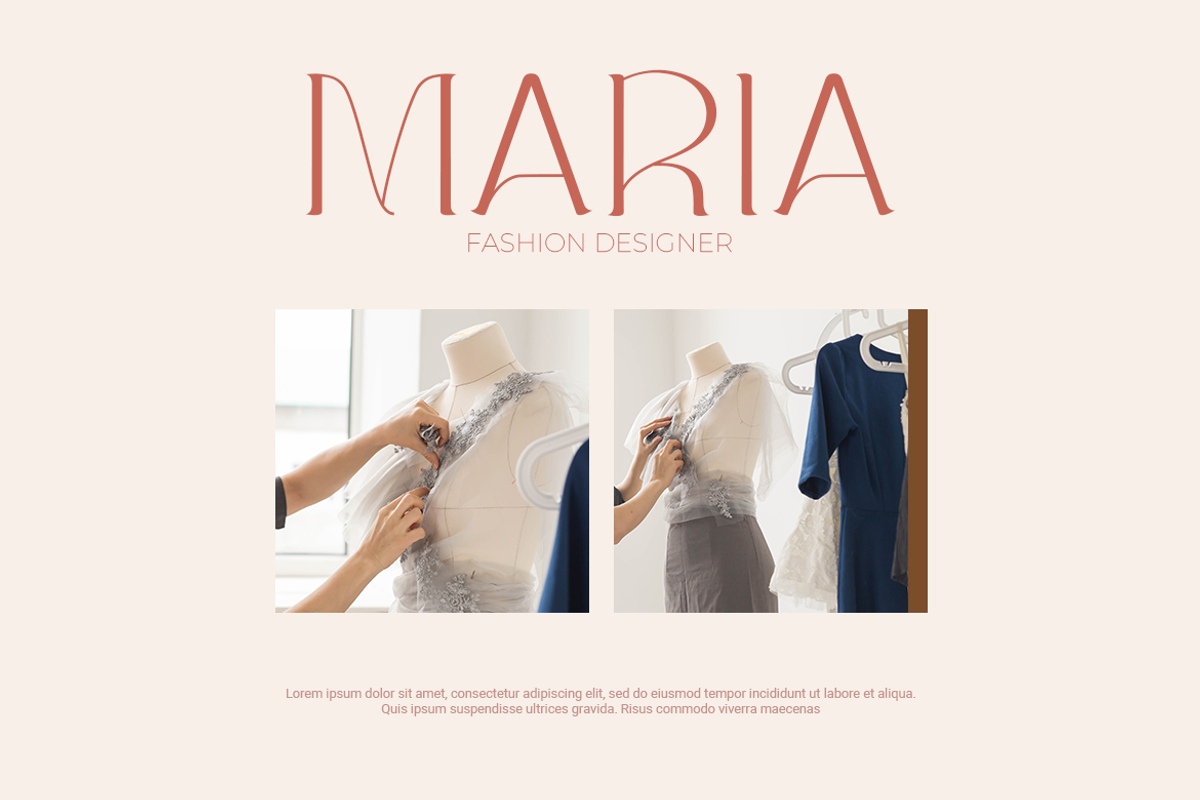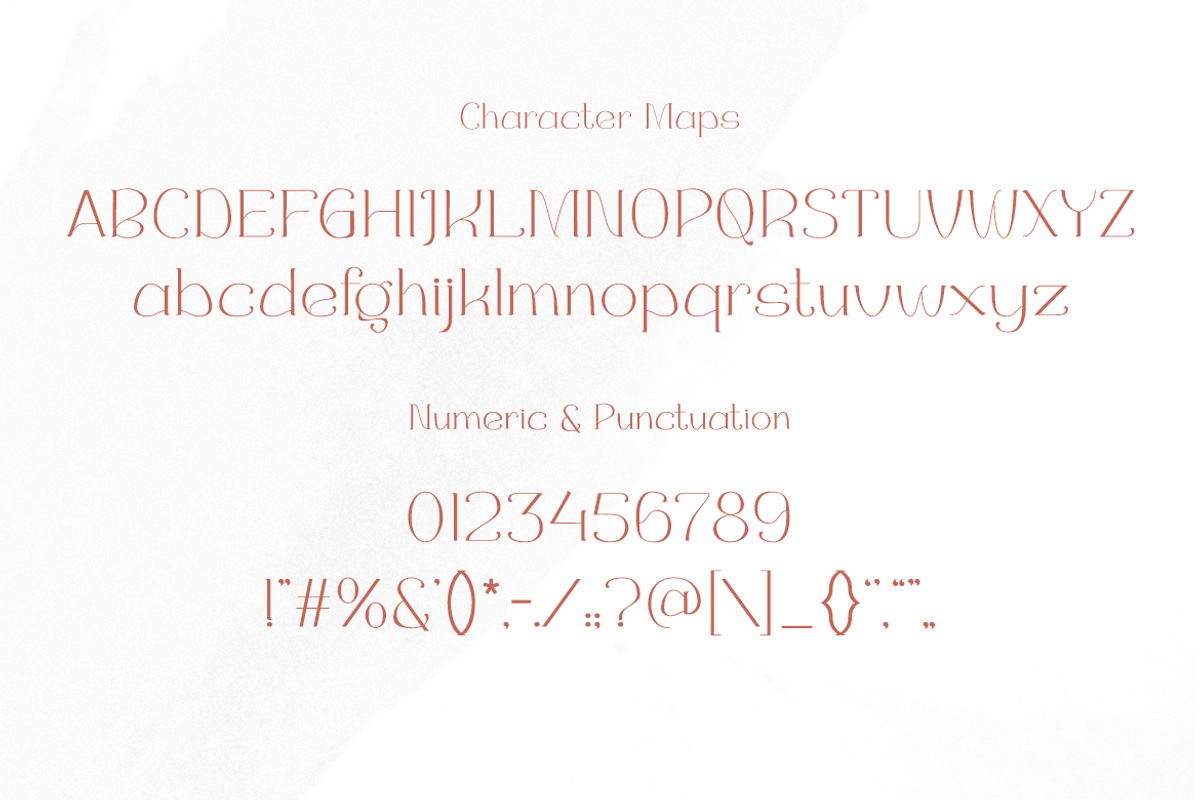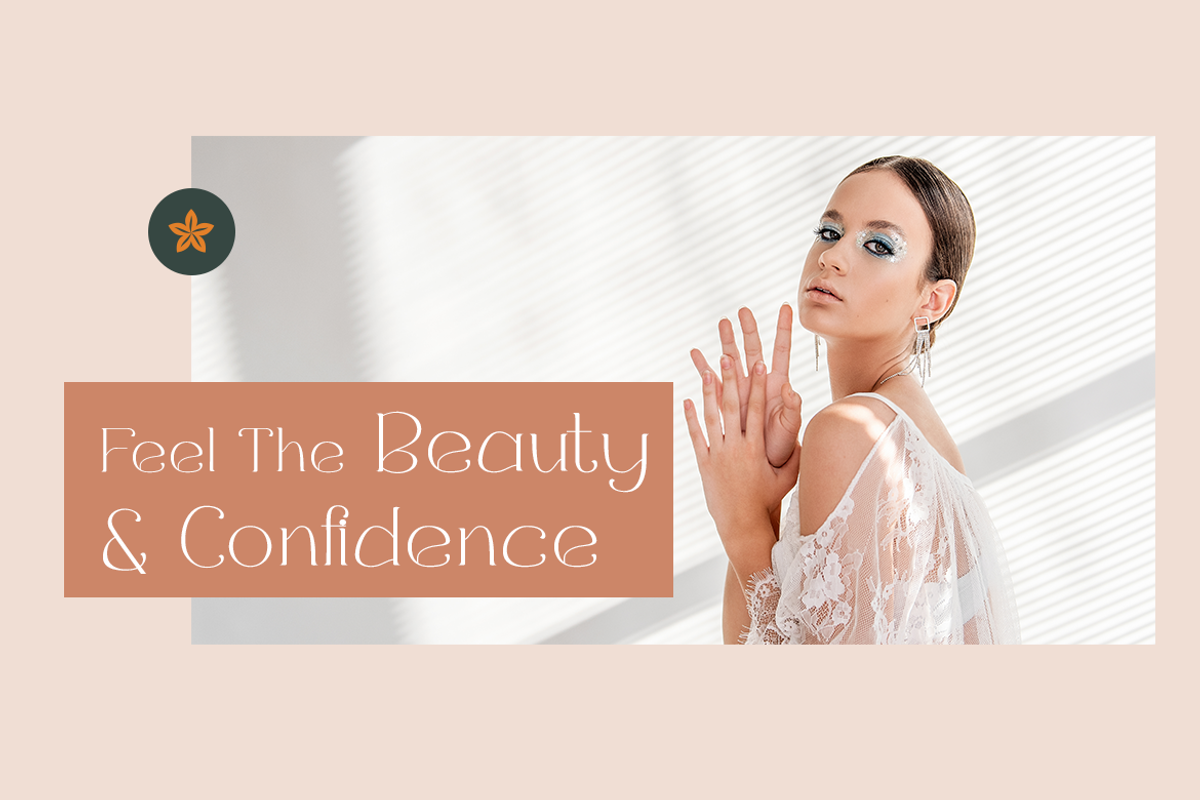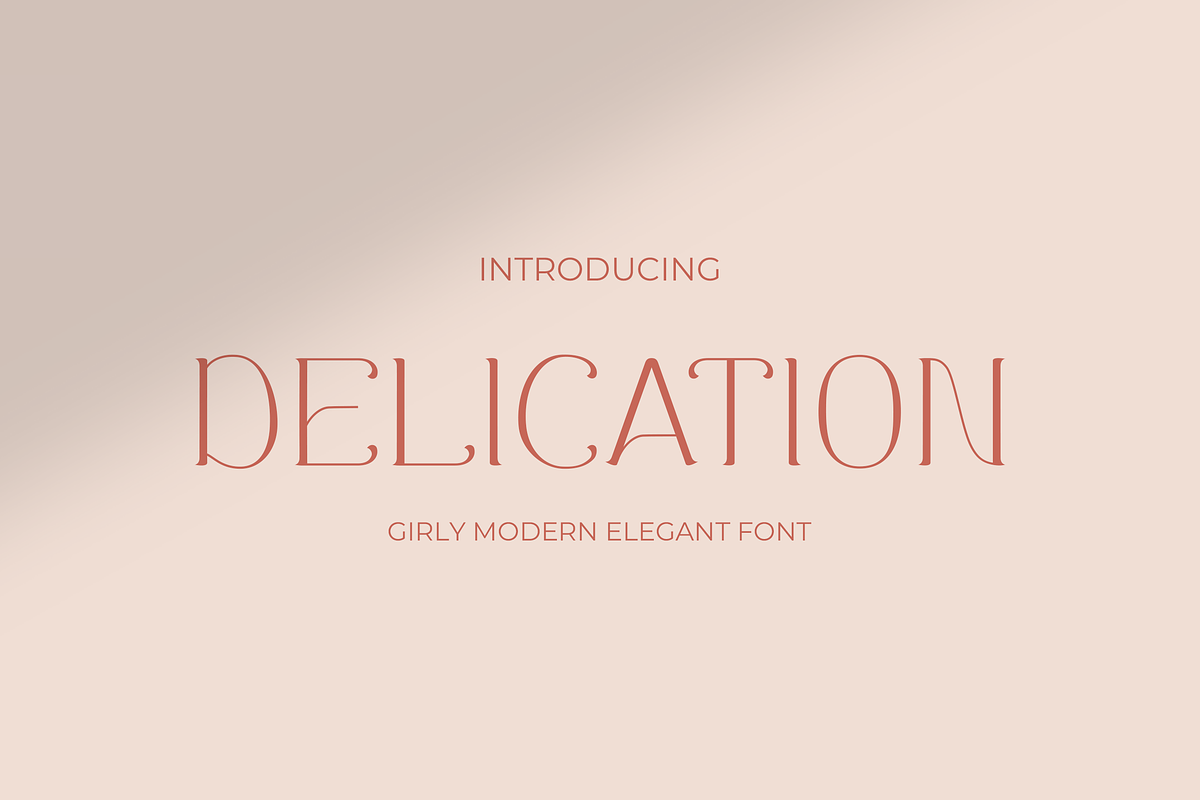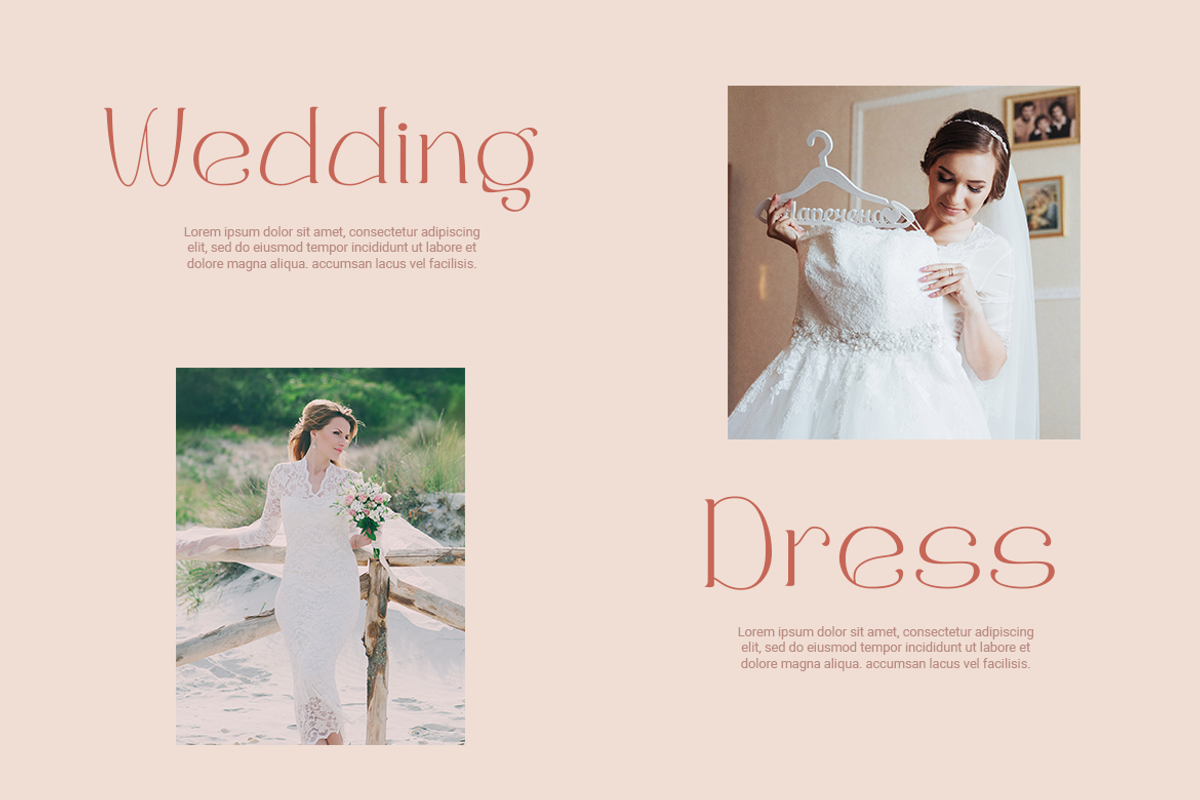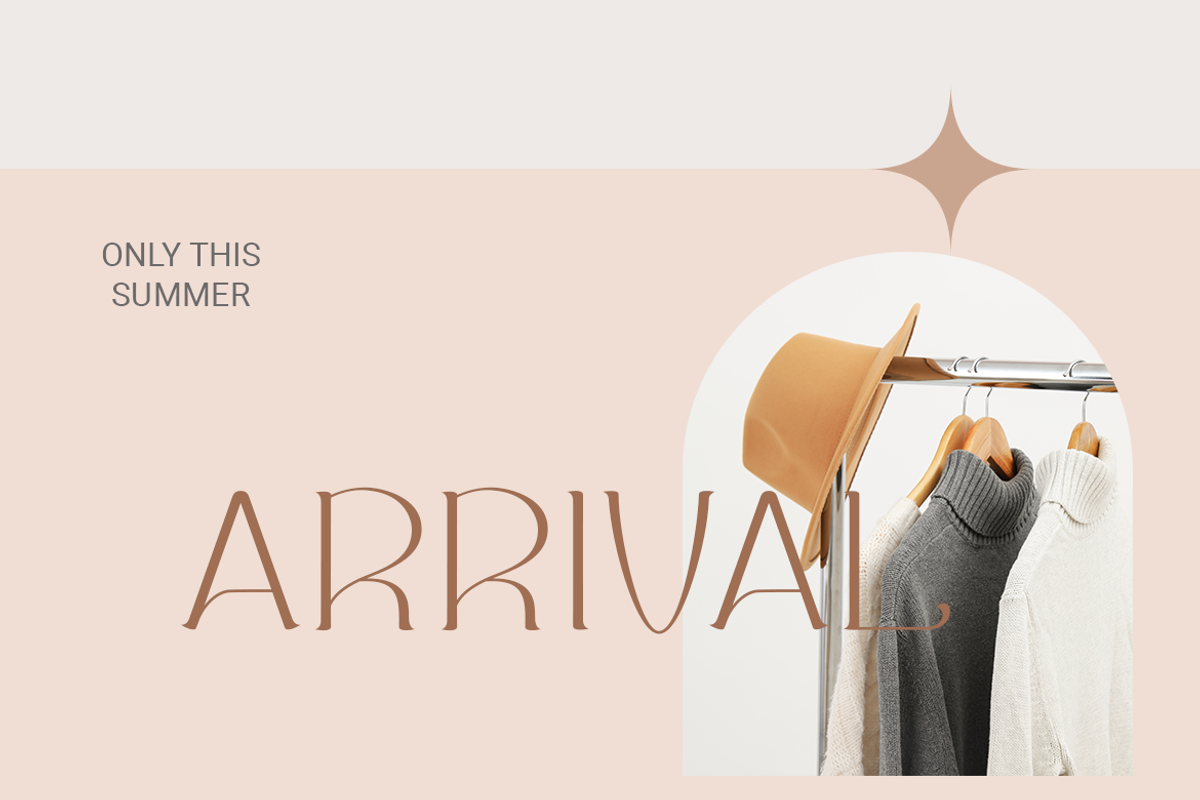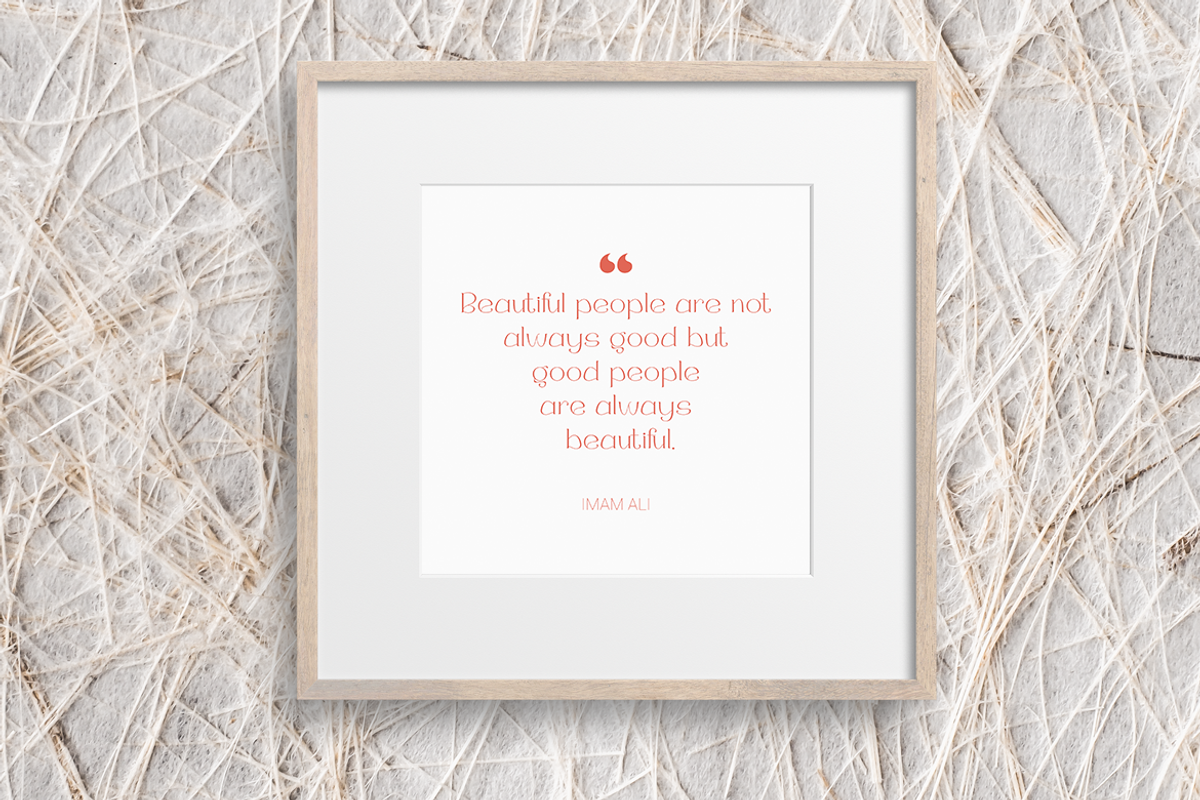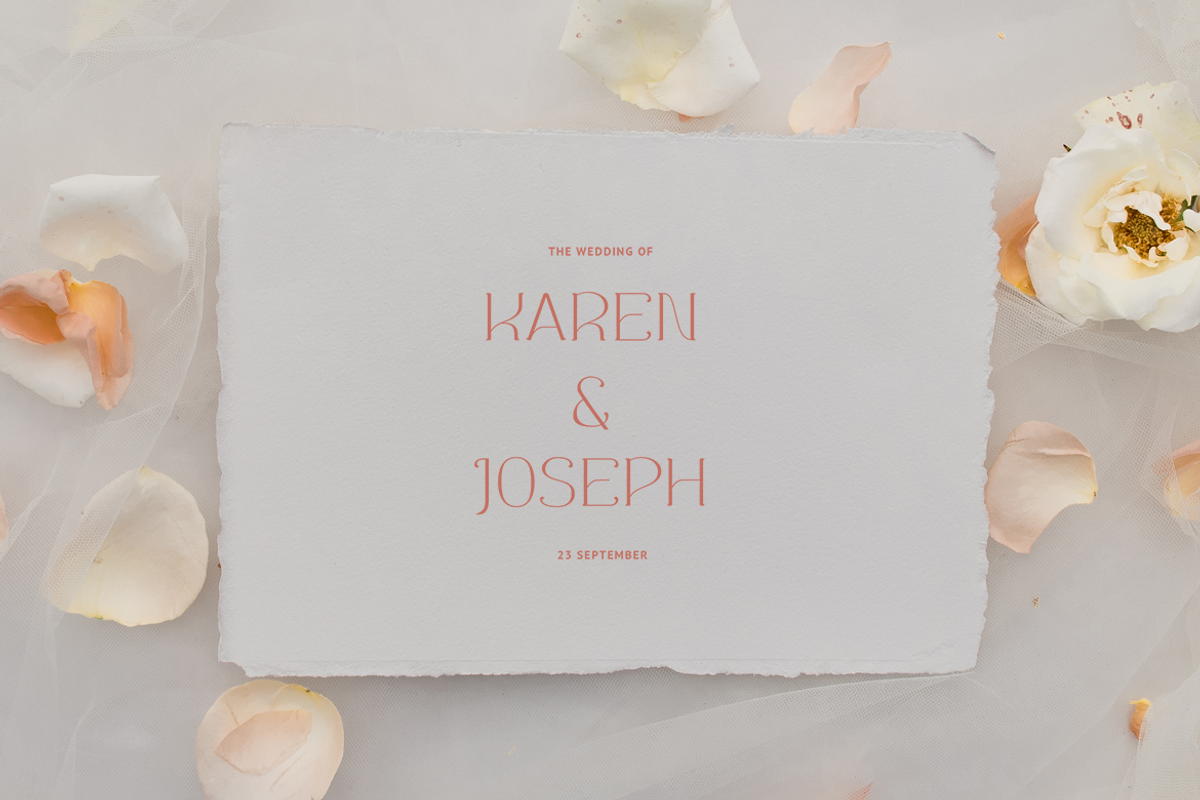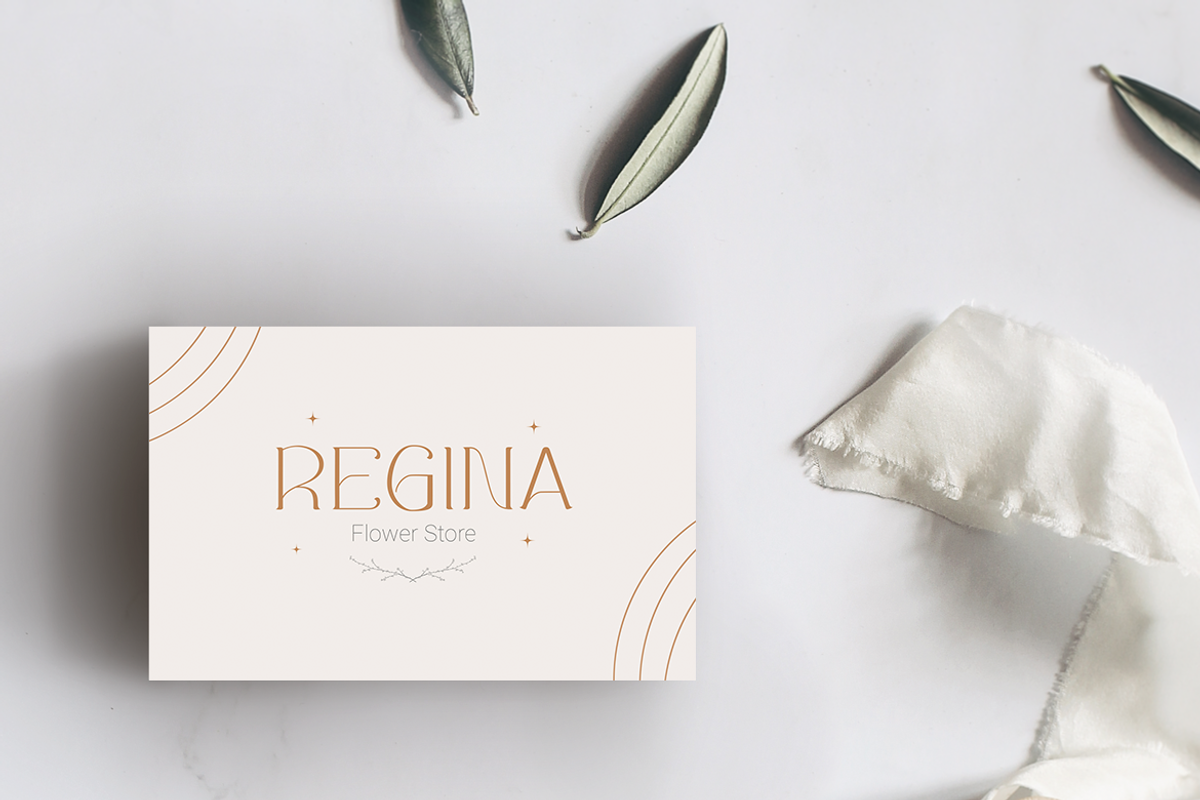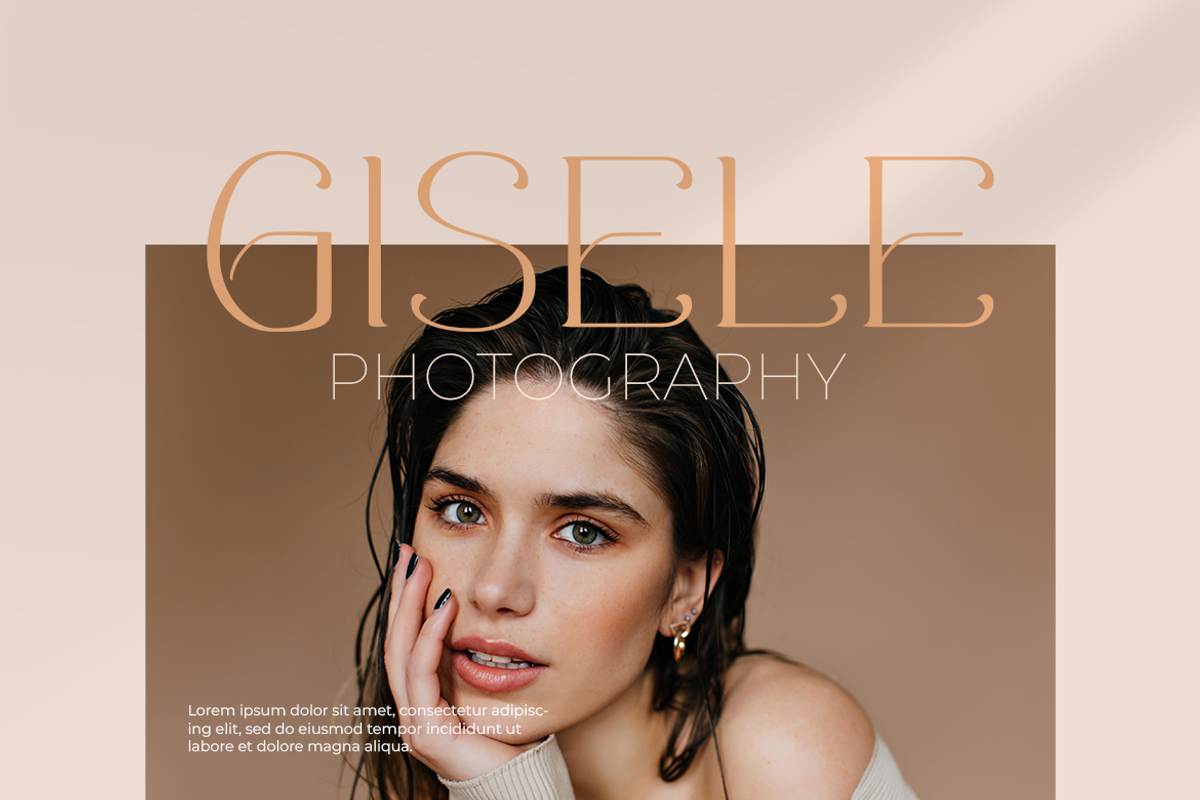
Delication
Delication Font - Elevating Fashion with Elegance
Elevate your design projects with Delication Font, a fusion of sophistication, femininity, and glamour. Each letter exudes a sense of refinement and delicacy, capturing the essence of fashion in its curves and strokes. Whether you're crafting a logo for a luxury brand, designing invitations for a chic event, or creating social media graphics for a trendy boutique, Delication Font adds a touch of elegance and allure to every composition.
Designed with meticulous attention to detail, Delication Font strikes the perfect balance between readability and visual appeal. Its graceful aesthetic makes it the perfect choice for fashion-related endeavors, from magazine layouts to branding materials. Let Delication Font be your go-to tool for bringing sophistication and style to your designs, ensuring that every project leaves a lasting impression on your audience